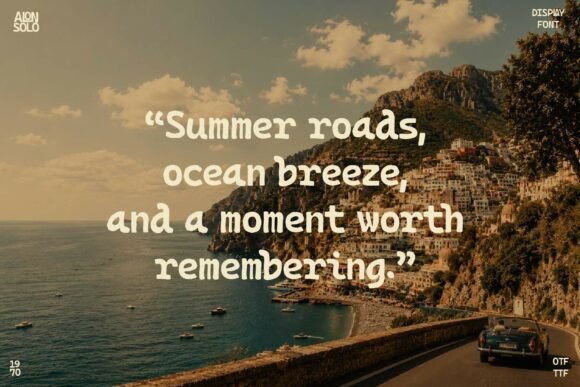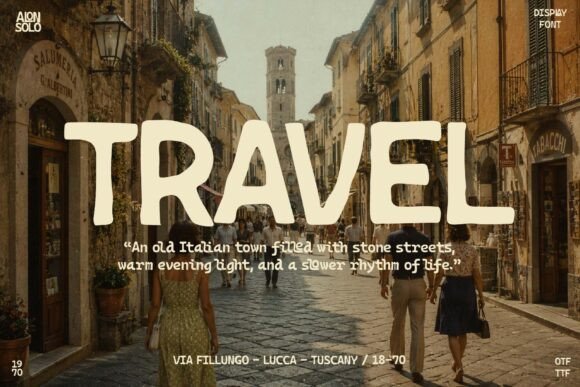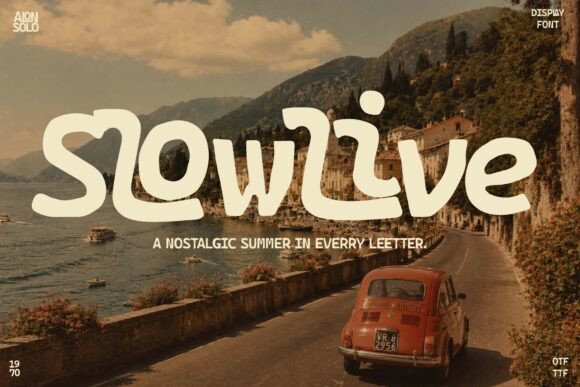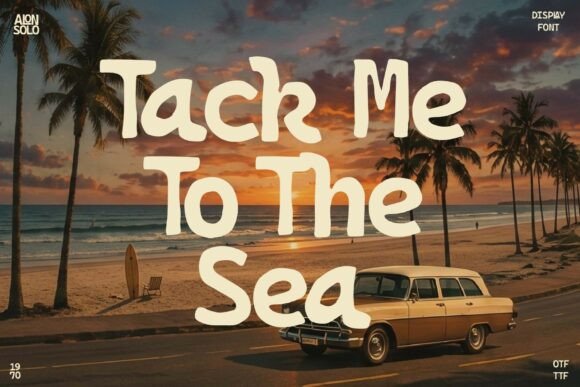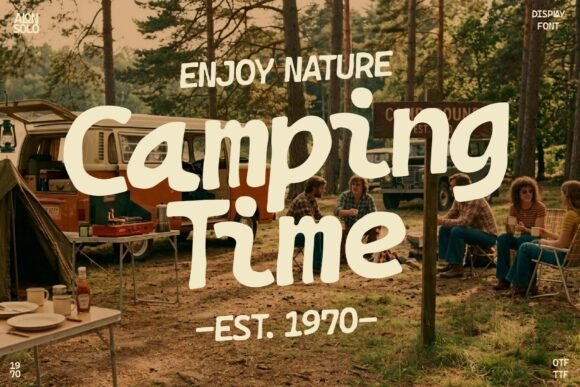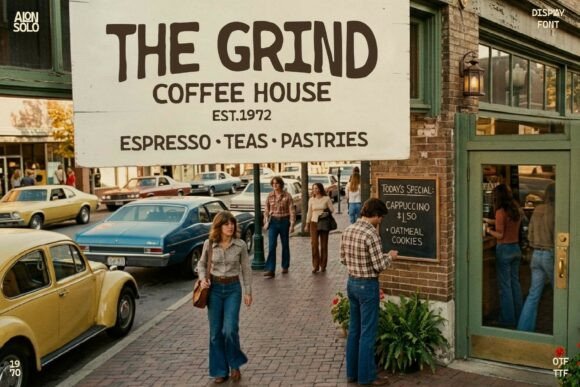
Alone Solo Font: A Nostalgic Journey Through 1970s Italy
Imagine yourself cruising along the sun-kissed coastlines of 1970s Italy, surrounded by vintage roads, ocean breeze, and timeless beauty. The Alone Solo Font embodies this essence, transporting you to an era of carefree adventure and creative expression. In this article, we’ll delve into the world of this captivating font, exploring its unique characteristics, and what makes it a must-have for designers and crafters.
The Birth of a Timeless Font
The Alone Solo Font is a masterpiece born from the nostalgia of a bygone era. Its creator drew inspiration from the classic typography of the 1970s, infusing it with a modern twist. The result is a font that exudes a sense of freedom and spontaneity, perfect for projects that require a touch of vintage charm.
What Makes Alone Solo Font So Special?
So, what sets the Alone Solo Font apart from other fonts? Here are a few key features that make it a standout:
- Unique Letterforms: The Alone Solo Font boasts distinctive letterforms that evoke the feeling of handwritten typography. Each character is carefully crafted to convey a sense of movement and fluidity.
- Retro Flair: The font’s retro aesthetic is unmistakable, with subtle imperfections and quirks that add to its charm.
- Versatility: The Alone Solo Font is incredibly versatile, suitable for a wide range of projects, from branding and advertising to crafting and scrapbooking.
Using Alone Solo Font in Your Design Projects
Whether you’re a professional designer or a crafty hobbyist, the Alone Solo Font is an excellent addition to your toolkit. Here are some ideas for incorporating it into your projects:
- Branding and Logo Design: Use the Alone Solo Font to create eye-catching logos and branding materials that evoke a sense of nostalgia and sophistication.
- Posters and Flyers: Add a touch of vintage glamour to your posters and flyers with the Alone Solo Font, perfect for promoting events, concerts, or festivals.
- Digital Crafts: Incorporate the Alone Solo Font into your digital crafts, such as printable art, planners, and journals, to give them a unique and personalized touch.
Tips for Pairing Alone Solo Font with Other Fonts
To get the most out of the Alone Solo Font, try pairing it with other fonts that complement its unique style. Here are some suggestions:
- Serif Fonts: Pair the Alone Solo Font with classic serif fonts, such as Times New Roman or Garamond, to create a striking contrast between modern and traditional typography.
- Script Fonts: Combine the Alone Solo Font with elegant script fonts, like Pacifico or Great Vibes, to add a touch of sophistication and whimsy.
The Alone Solo Font is a true gem, offering a unique blend of nostalgia, style, and versatility. Whether you’re a designer, crafter, or simply someone who appreciates beautiful typography, this font is sure to captivate and inspire. So why not take a step back in time and experience the sunlit coastlines of 1970s Italy through the Alone Solo Font? Your design projects will thank you.